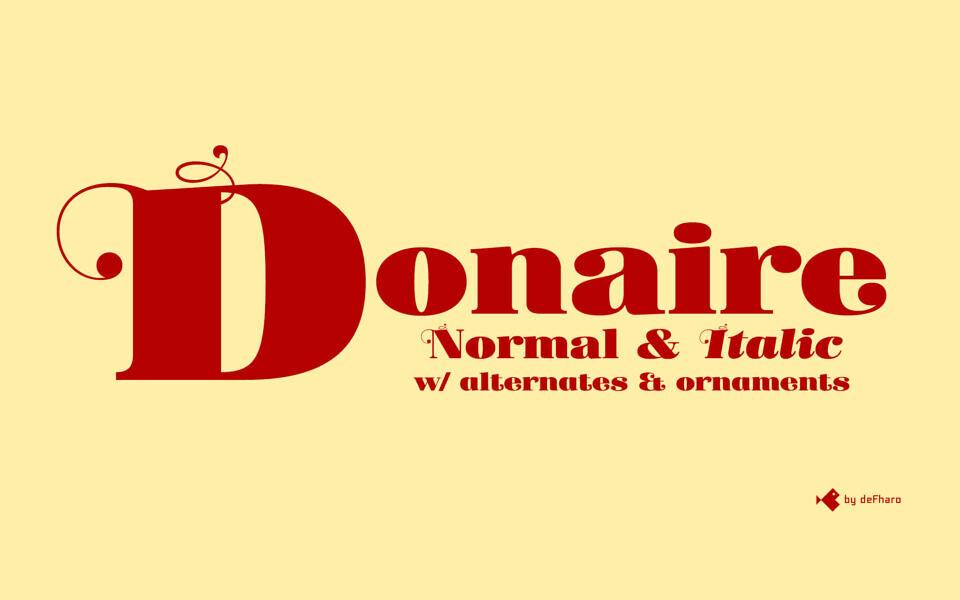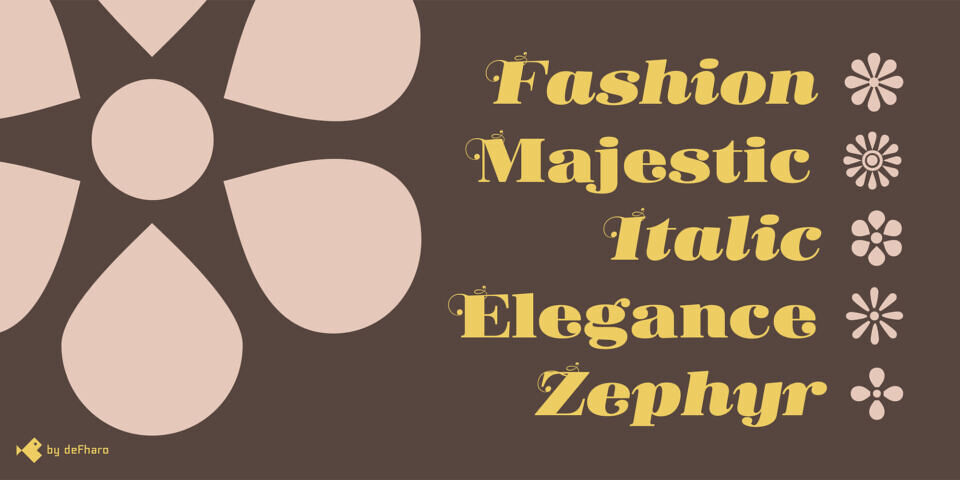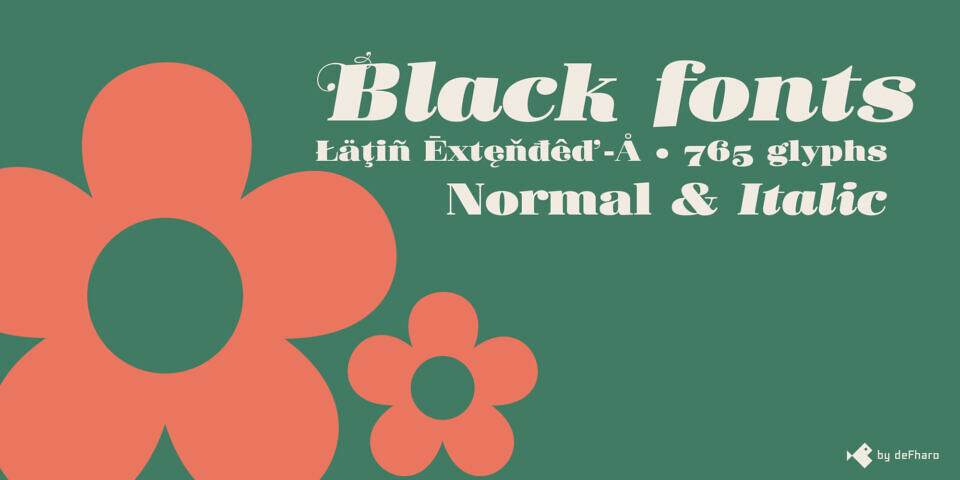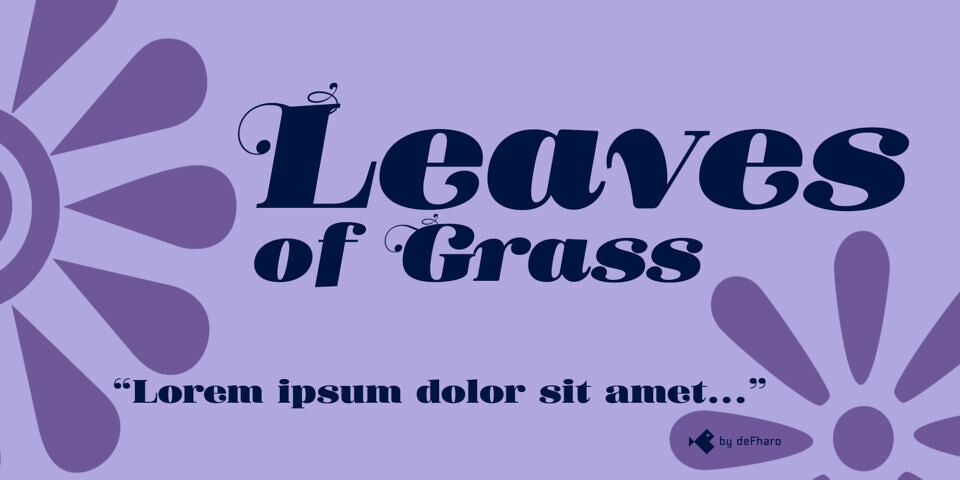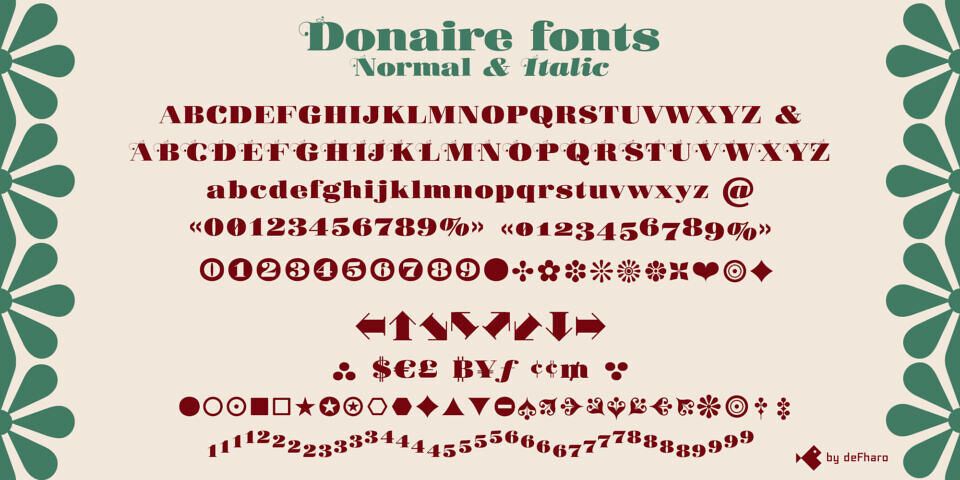
Donaire Black is a modern Didone typeface that reinterprets the elegant fat face fonts of the 18th century. Blending historical roots with a contemporary touch, it features strong vertical lines, delicate horizontal strokes, and refined transitional serifs. Square proportions, short ascenders and descenders, and teardrop endings create a striking balance of legibility and style.
Donaire Black captures the bold rhythm and authority of classical Didones while embracing modern aesthetics—perfect for designs that demand both sophistication and impact.